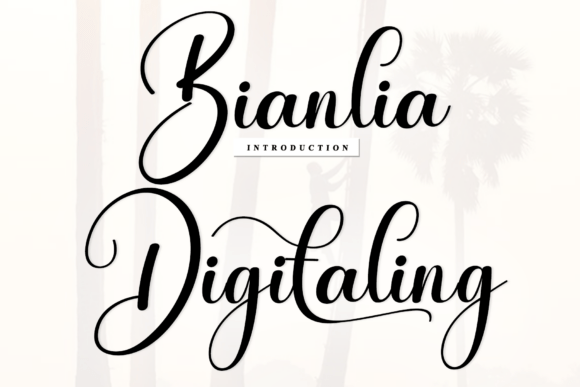
The Bianlia Digitaling Font: A Timeless Handwritten Treasure
The Bianlia Digitaling font is a lovely and timeless handwritten font that has become my go-to choice for creating eye-catching logos, branding, and quotes. Every letter has a unique and beautiful touch, which will make your design come alive!
- ✨ Unique and beautiful handwriting style
- ✅ Perfect for creating eye-catching logos, branding, and quotes
- 💫 Supports OpenType features, glyphs, and stylistic alternates
- 🎨 Highly versatile and can be used for various design projects
While the Bianlia Digitaling font is amazing, there are a few things to keep in mind:
- ⚠️ Some letters may not be suitable for body text due to their unique design
- 🤔 Limited availability of font variations (e.g., bold, italic)
The Designer Inspiration Behind Bianlia Digitaling
Although I couldn’t find much information on the font’s creator, I like to imagine that Bianlia Digitaling was crafted by a passionate designer who wanted to create a timeless, handwritten font. Perhaps they drew inspiration from traditional calligraphy and hand-lettering techniques, infusing the font with a sense of warmth and personality.
Q: What type of projects is Bianlia Digitaling best suited for?
A: Bianlia Digitaling is perfect for creating eye-catching logos, branding, and quotes. Its unique handwriting style makes it ideal for creative projects, such as invitations, stationery, and titles.
Q: Is Bianlia Digitaling available in different font weights?
A: Bianlia Digitaling may have limited font variations, such as bold or italic. However, its unique design and OpenType features make it highly versatile and adaptable to various design projects.